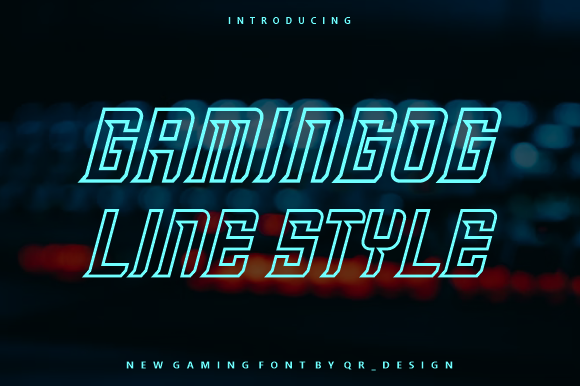
**Introducing Gamingog Line: The Font That Captures the Spirit of Gameplay**
Embark on an epic gaming adventure where every letter carries the weight of your victory. Gamingog Line, a bold and authentic display font, unleashes the power of your words.
Imagine the thrill of writing a captivating goodbye letter that resonates with emotion and leaves a lasting impression. Gamingog Line's distinct lines evoke a sense of nostalgia and longing, making your words leap off the screen with a captivating charm.
**Elevate Your Game Branding to New Heights**
Step into the realm of game branding and watch your creations soar. Gamingog Line's versatility empowers you to craft logos that embody the essence of your game. Its bold strokes command attention, making your brand unmissable in a crowded gaming landscape.
**Unleash Your Creativity**
Beyond the realms of gaming, Gamingog Line unleashes your creativity. Craft eye-catching posters that transport viewers to extraordinary worlds. Design invitations that spark a playful anticipation. Let your imagination run wild as you explore the endless possibilities of this captivating font.
**A Masterpiece for Your Digital Legacy**
Forge your digital legacy with a font that reflects your passion and prowess. Gamingog Line, a creation of qrdesignstd, is a testament to the power of imagination. Its bold lines and nostalgic charm will leave an unforgettable mark on your every digital endeavor.